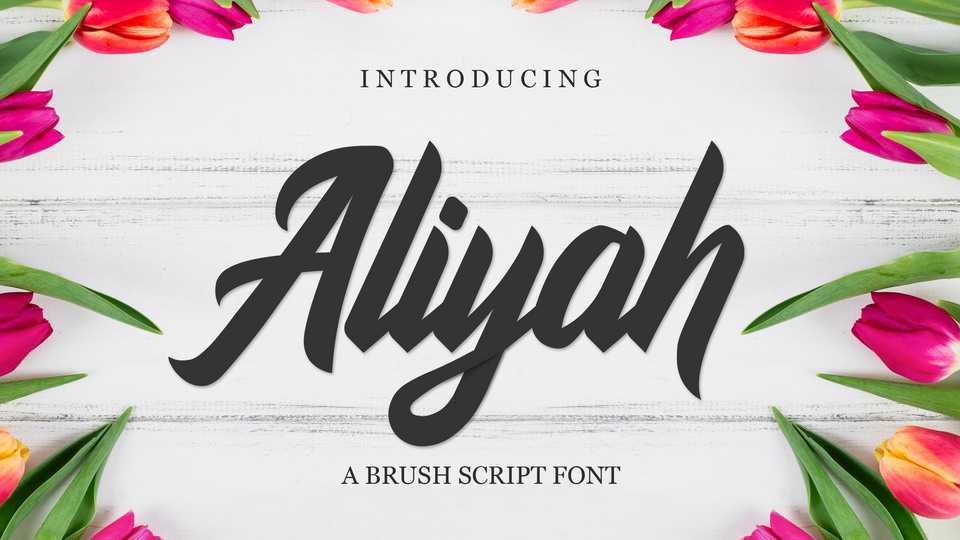
Download Aliyah font, a beautiful brush script. Aliyah font is to use for any kind of design such as branding projects, logos, social media posts, advertisements, product packaging, labels, poster, t-shirt, watermarks, paper bag, qoutes, etc.